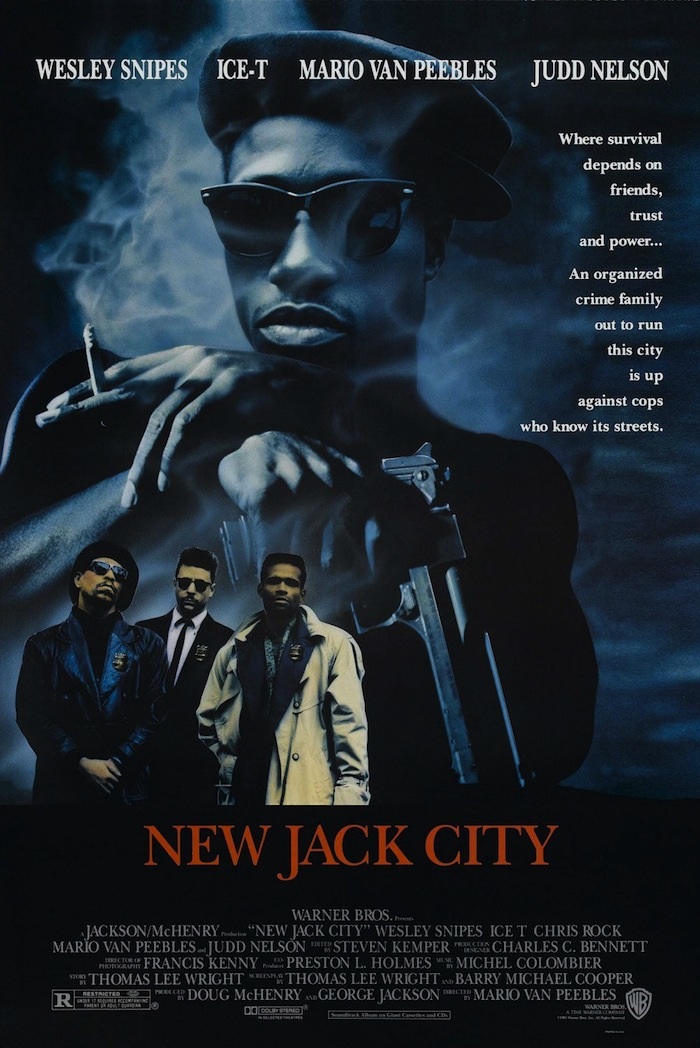
New Jack City Font
CrimeNew Jack City is a 1991 crime film directed by Mario Van Peebles, exploring the rise and fall of a drug lord named Nino Brown in Harlem, New York City. The movie delves into the gritty world of drug trafficking, corruption, and the efforts of a determined detective to bring Nino to justice.
The film title on the poster of New Jack City features the serif typeface ITC New Baskerville Roman, a contemporary interpretation of John Baskerville's work by John Quaranda.